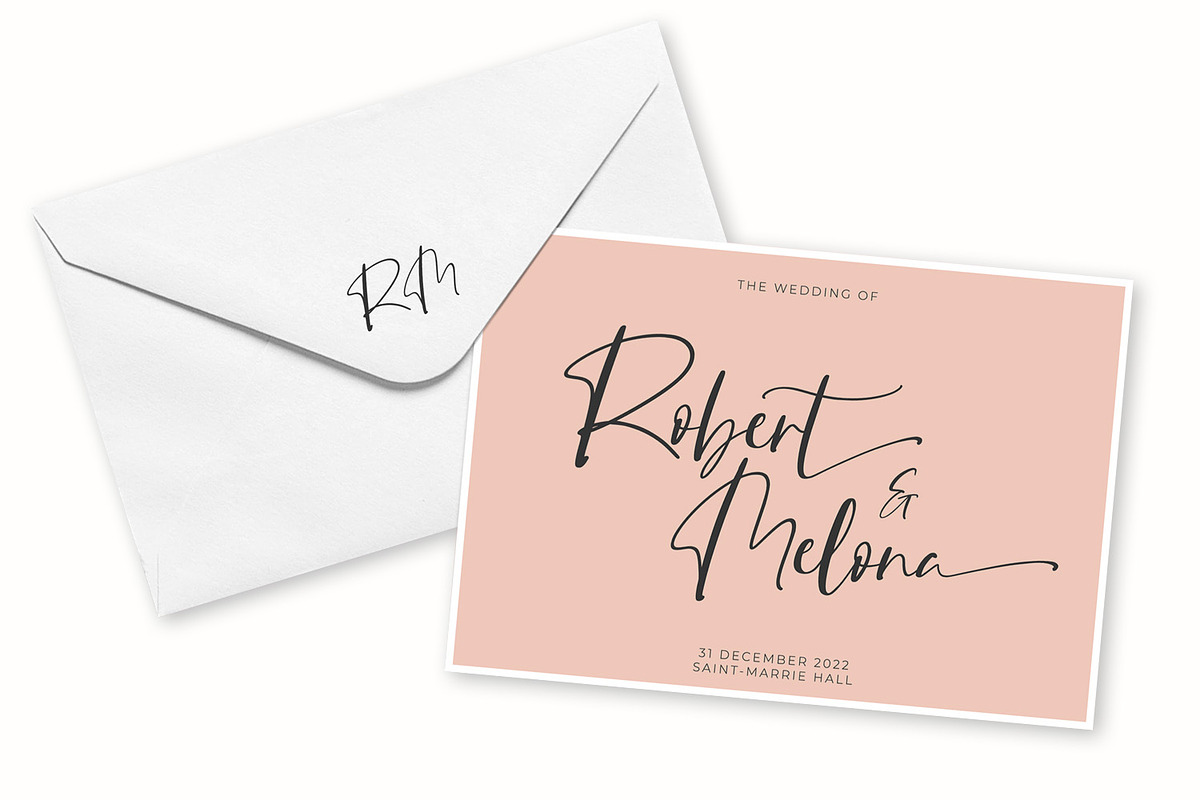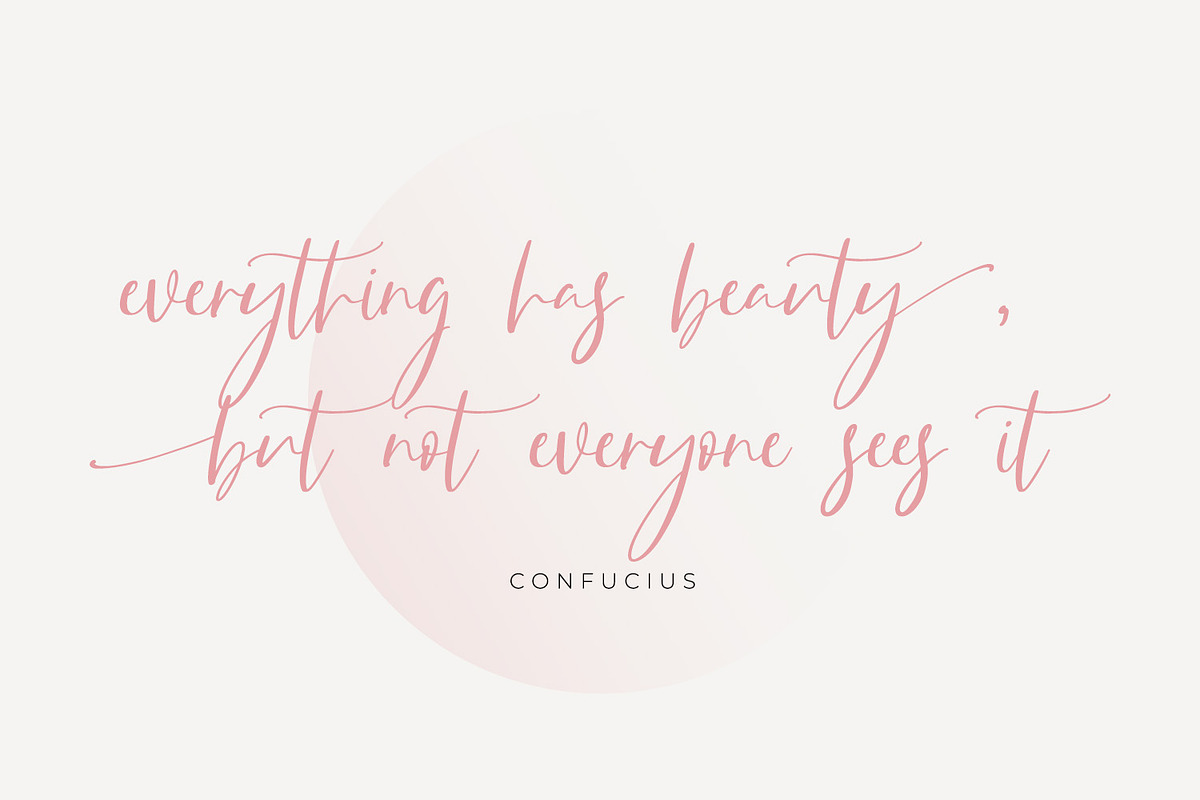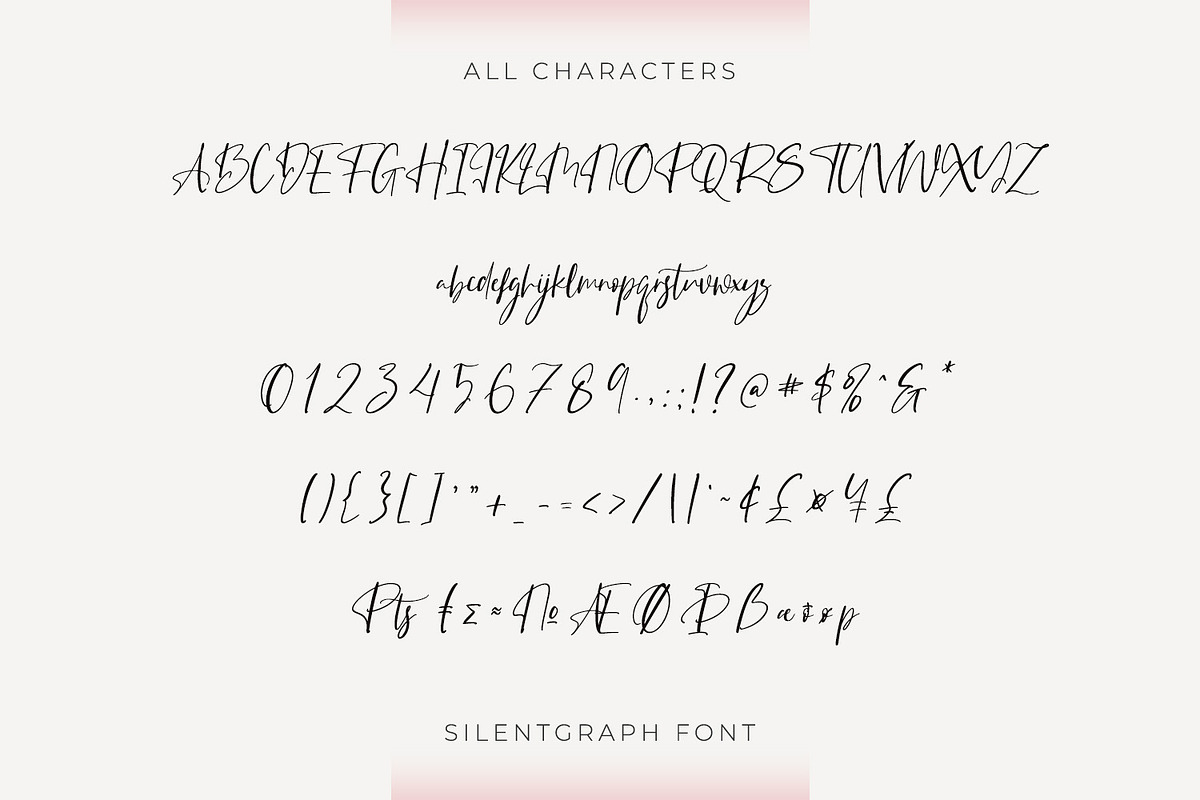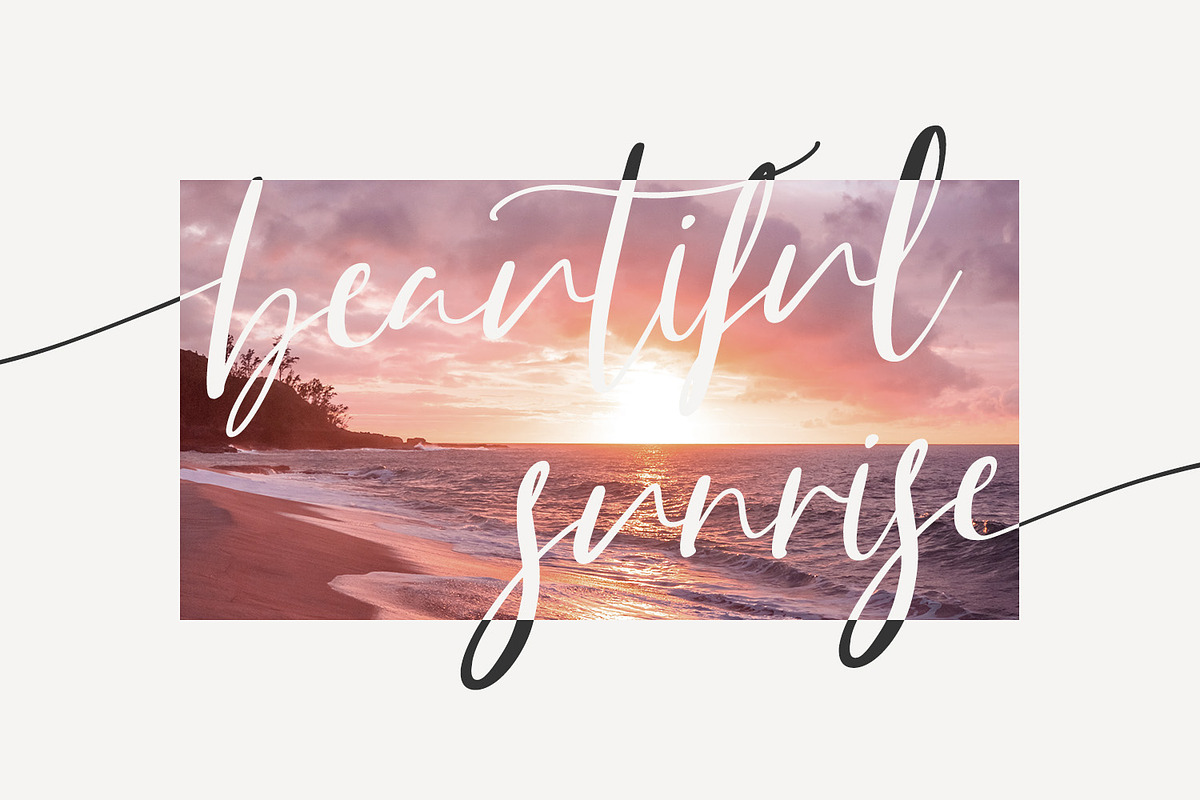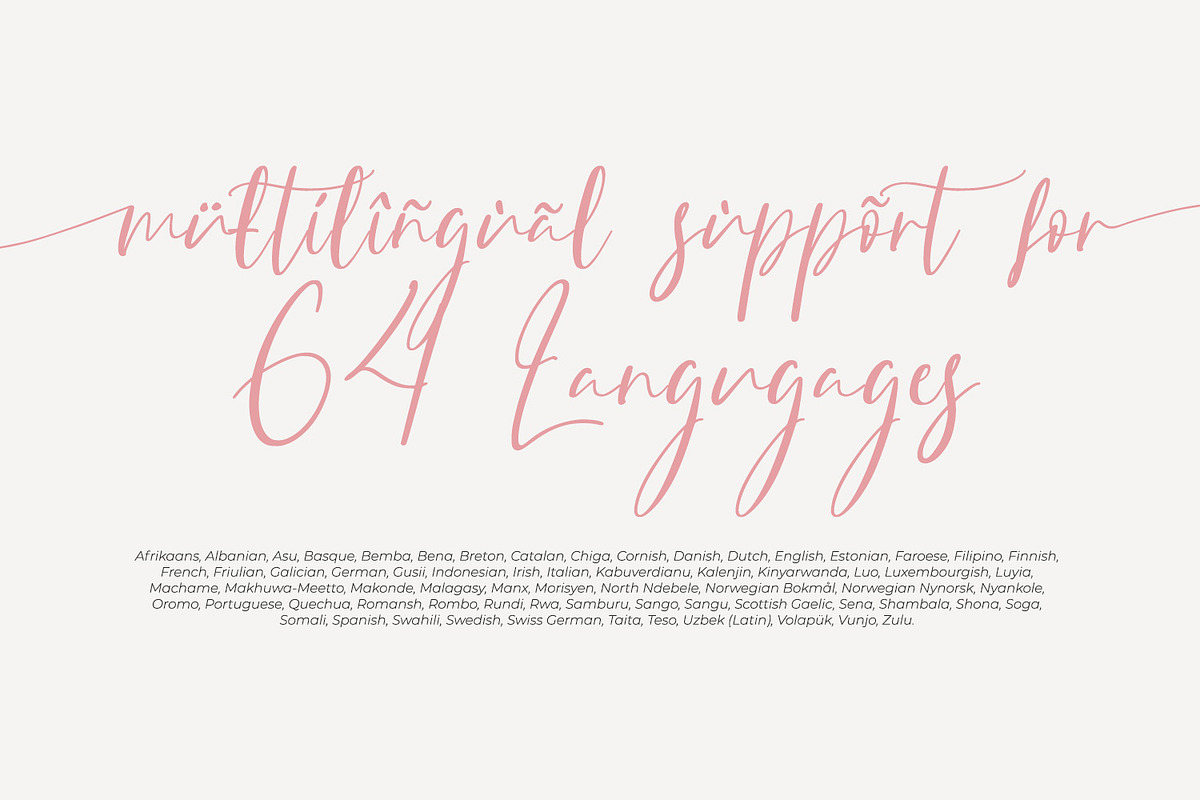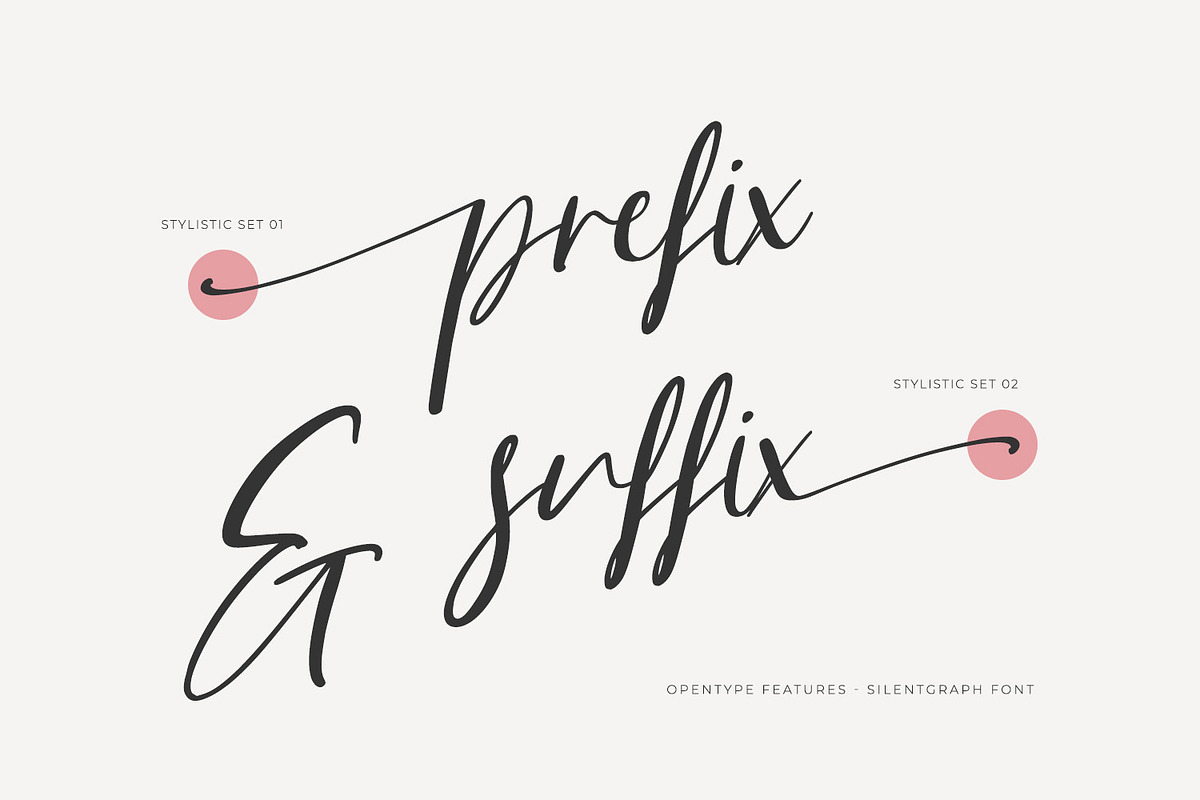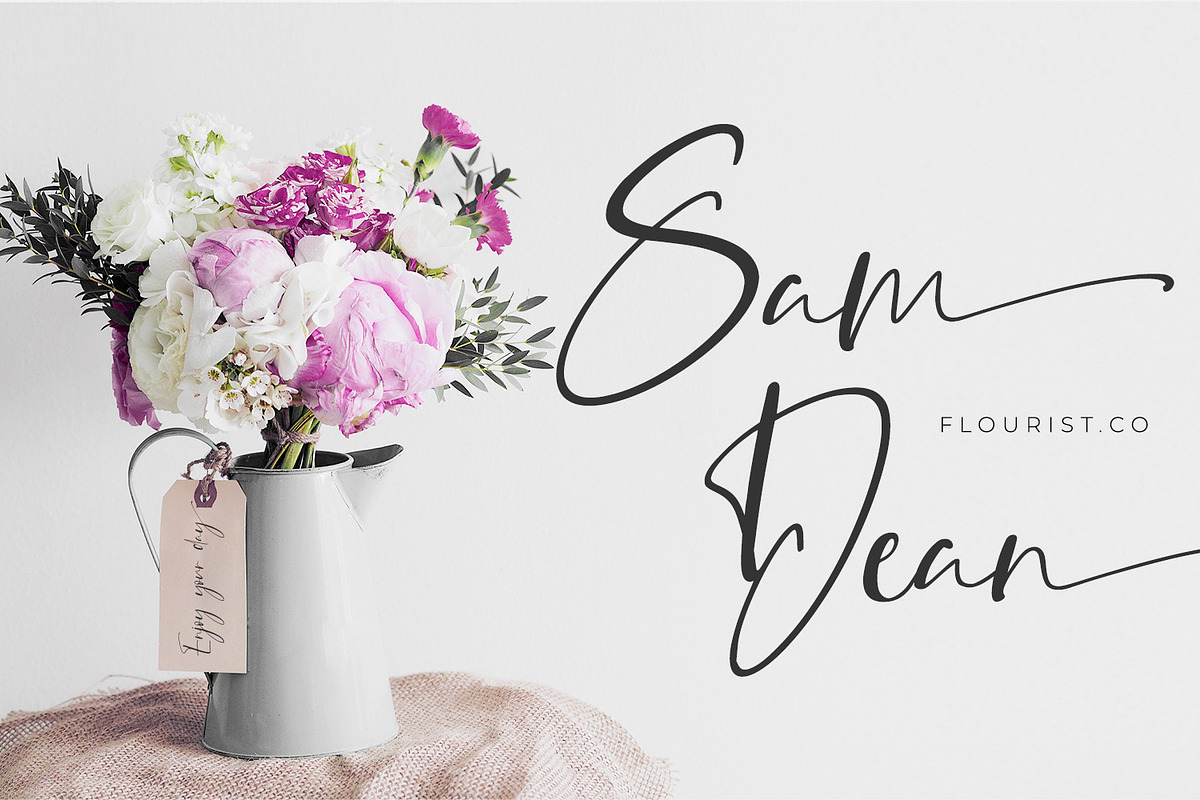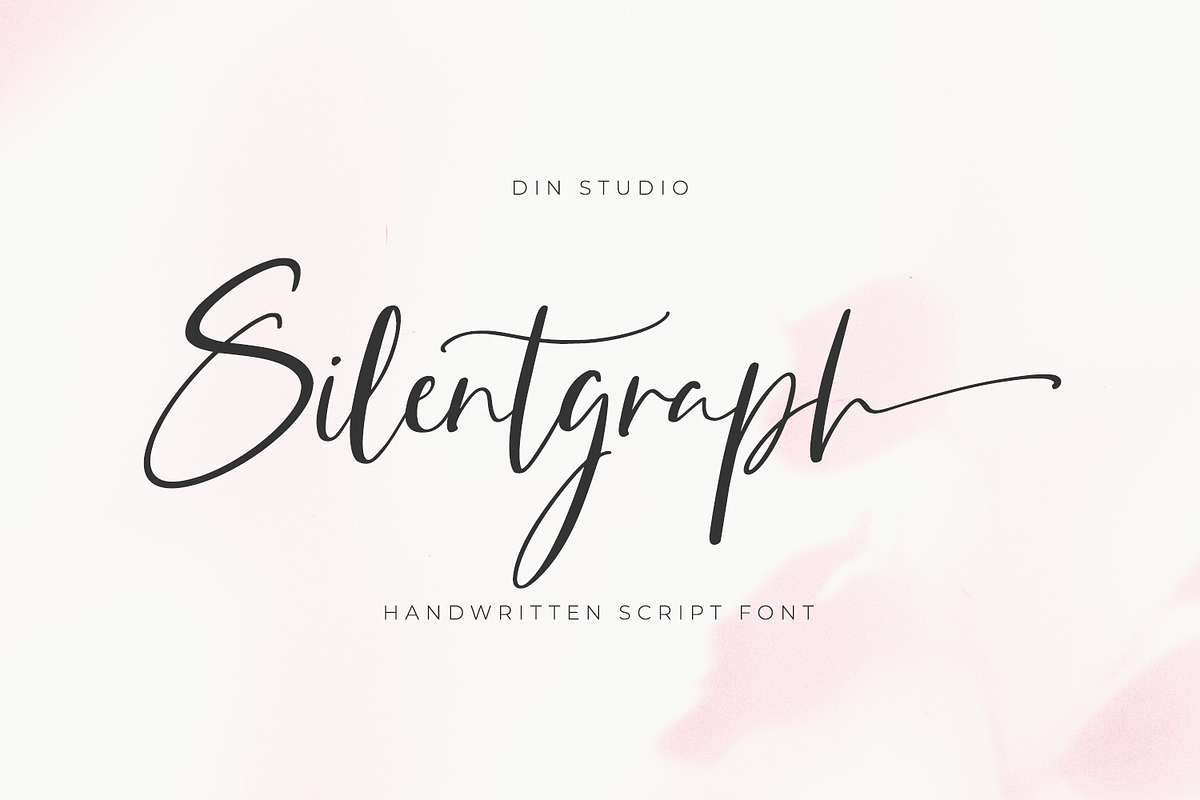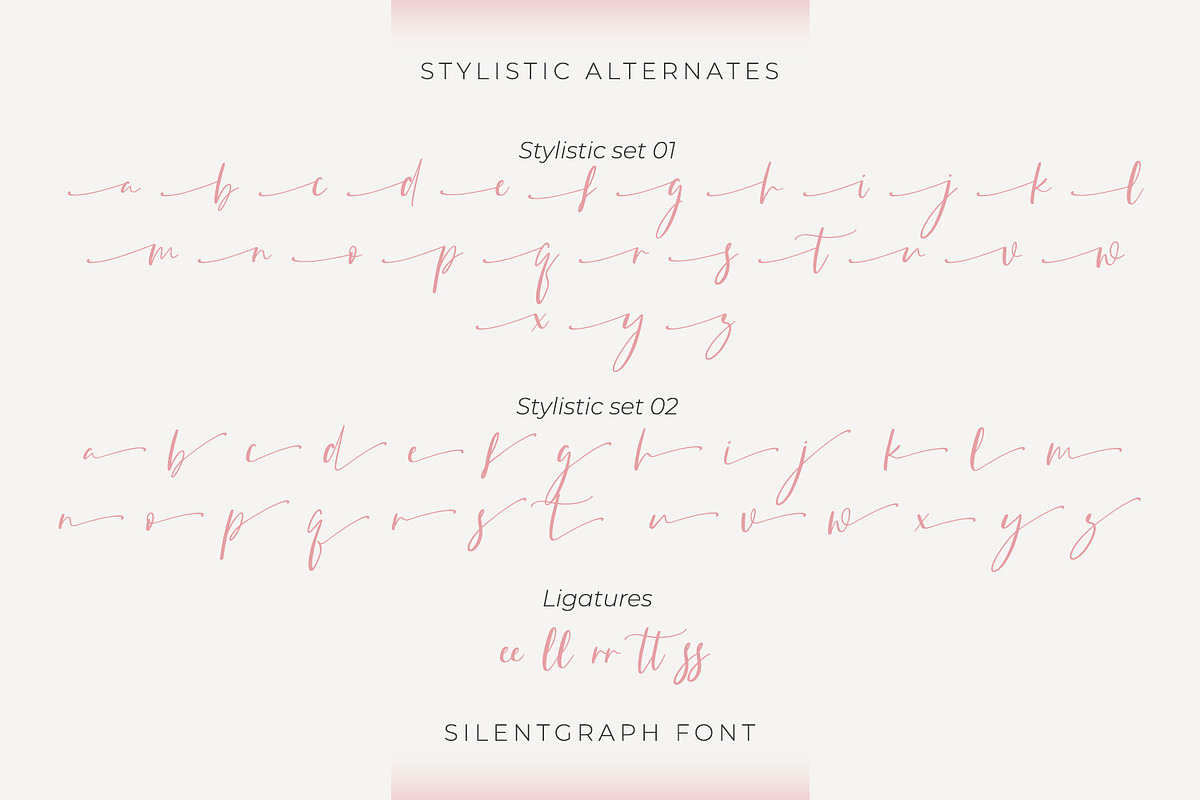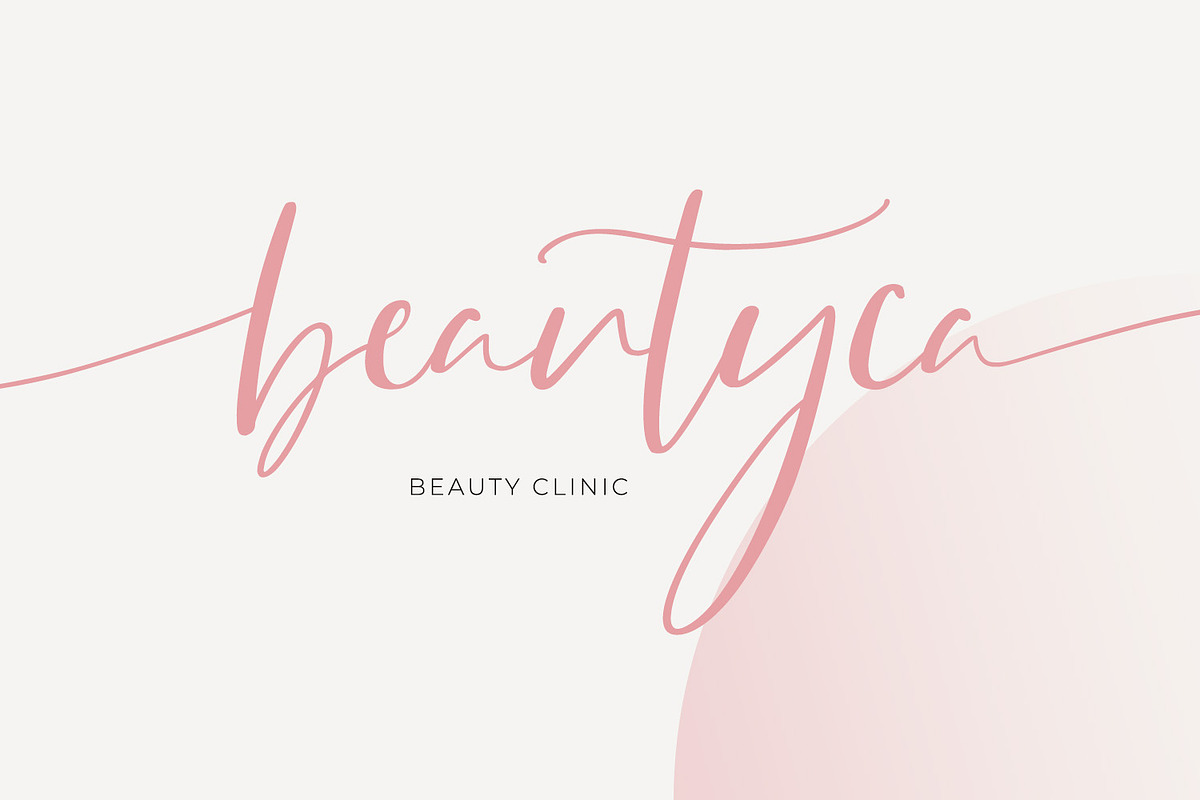
Silentgraph
Silentgraph is a script font made from handwriting in lovely designs to make your designs prominent. Every stroke expresses beauty and cursive styles of which letters are interconnected. Details of each letter show curvy wipes and high contrasts on its edges. Use this font for big-sized texts to be legible.
- Stylistic Sets
Silentgraph fits for various design projects, such as posters, banners, logos, magazine covers, quotes, headings, printed products, invitations, name cards, merchandise, social media, etc. Find out more ways to use this font by taking a look at the font preview.